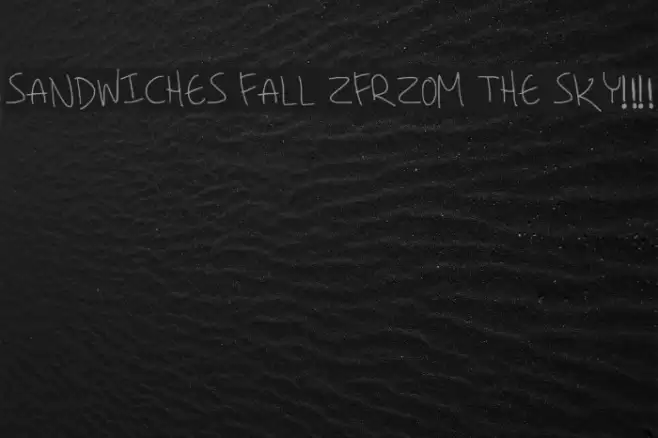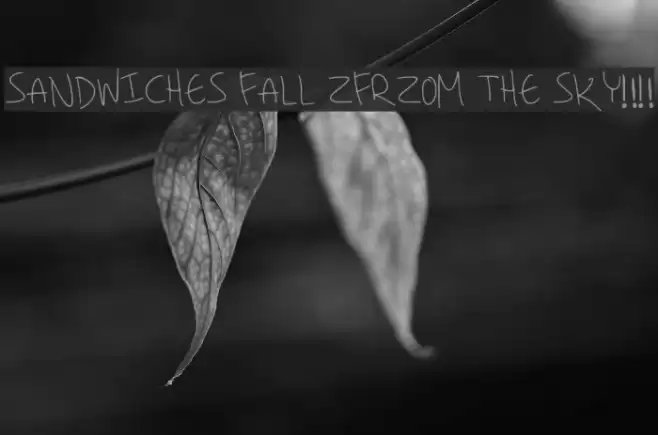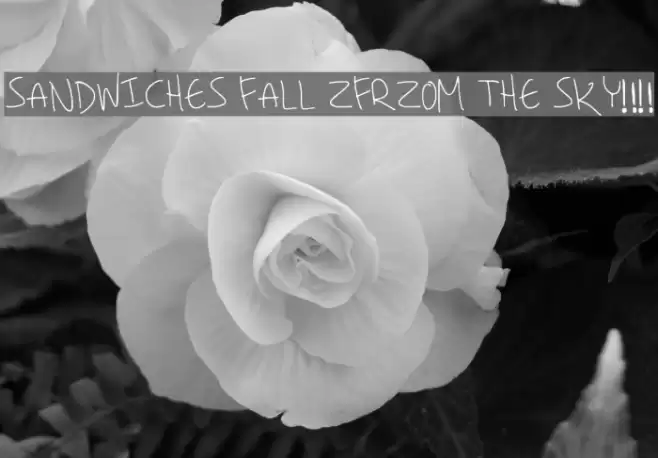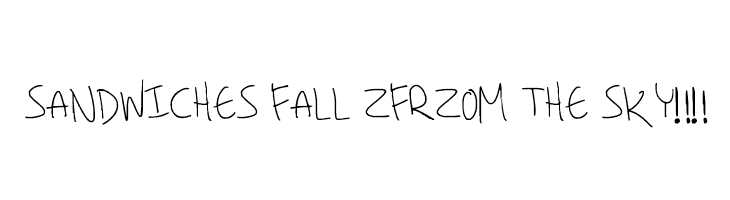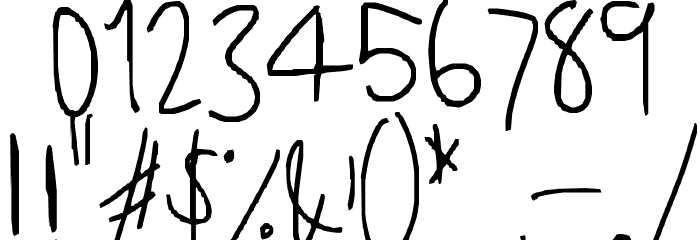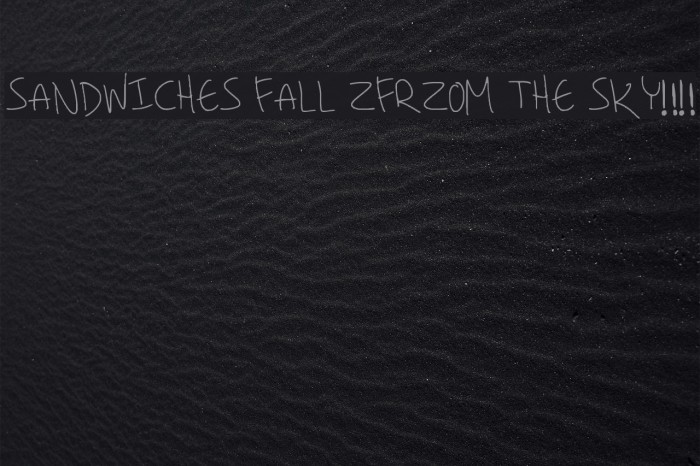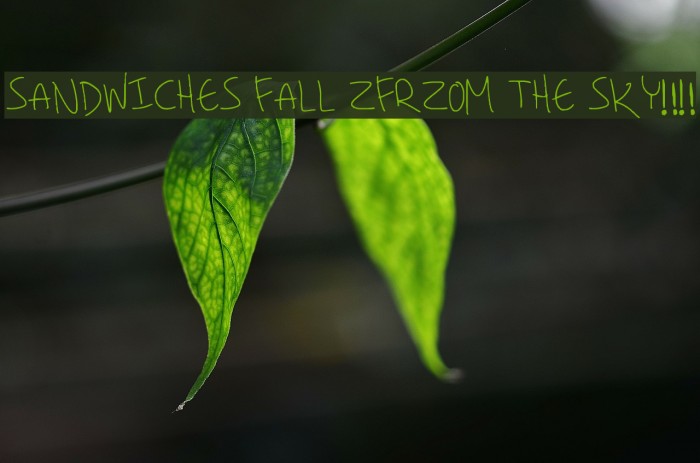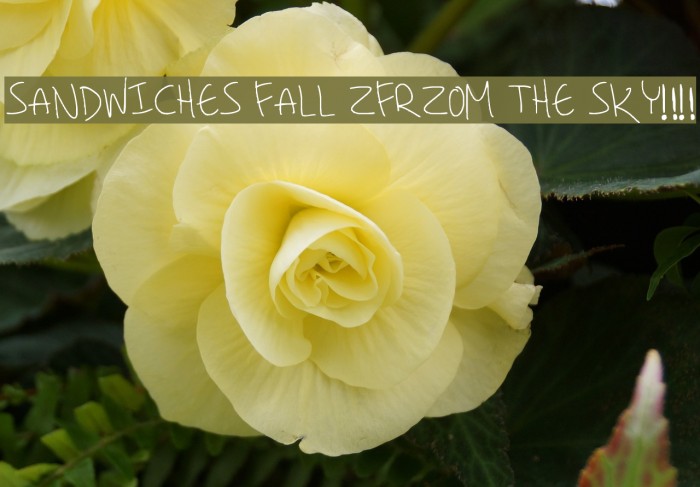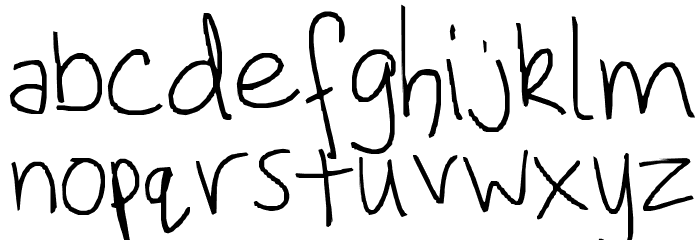
SANDWICHES FALL ZFRZOM THE SKY!! Font
SANDWICHES FALL ZFRZOM THE SKY!! Description
This font features a casual, handwritten style that exudes a sense of informality and approachability. The letters are slightly uneven, mimicking the natural flow of handwriting, which adds a personal touch to any text. The strokes are consistent in width, providing a uniform appearance despite the playful nature of the characters. The uppercase and lowercase letters are well-proportioned, and the numerals maintain the same playful aesthetic. Special characters are included, maintaining the same handwritten feel. This font is perfect for projects that require a personal, human touch, such as greeting cards, personal blogs, or informal branding.
A casual, handwritten font with a playful and approachable style from Uncategorized fonts.
- Proposed Projects: Ideal for greeting cards, personal blogs, informal branding, and creative projects.
- Overall Style: Casual, Playful
- Use Case: Headlines, Informal text, Creative projects